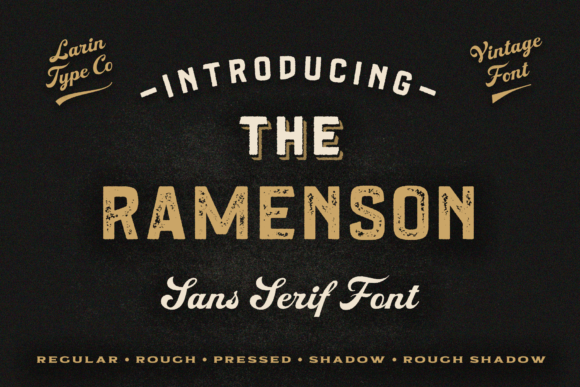
Dive into the realm of remarkable typography with Ramenson Font, a captivating display font that commands attention and leaves a lasting impression. Its bold strokes and chunky letters exude a sense of unwavering strength, making it the perfect choice for product packaging that demands to be noticed. Unleash your creativity and make a lasting impact on your branding projects, ensuring your designs stand out from the crowd.
Immerse yourself in the world of captivating magazine covers, where Ramenson Font takes center stage, enticing readers with its bold presence. Its thick letterforms add a touch of intrigue and sophistication, drawing the eye and sparking curiosity. Whether you're crafting social media posts that demand attention or designing unforgettable wedding invitations, Ramenson Font is your trusted ally.
With Ramenson Font, words transcend their boundaries, becoming expressive works of art that rise above the mundane. Its PUA encoding grants you effortless access to a treasure trove of glyphs and swashes, empowering you to weave intricate designs and unleash your boundless creativity. Experience the sheer joy of transforming ordinary text into mesmerizing visual masterpieces.